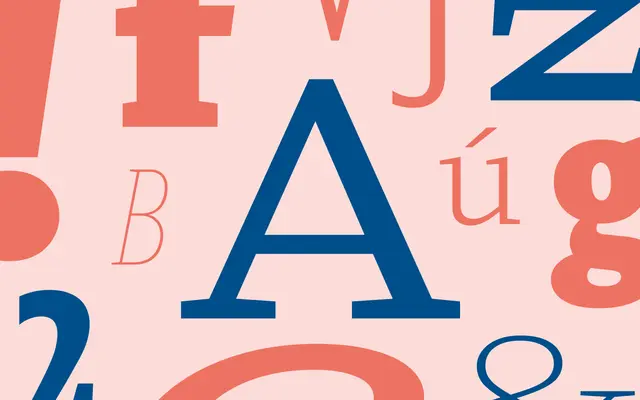
Aldgate Serif
Dalton Maag · Ignacio Casco Guijarro · 2023
Aldgate Serif specimen from Dalton Maag
A contemporary serif companion to Aldgate Sans, with Weight, Width and Italic variable axes and a warm, dignified tone.
Dalton Maag's Aldgate Serif is a contemporary serif by Ignacio Casco Guijarro, released 2023 to pair with Aldgate Sans. The variable font runs Hairline to Black across seven widths from ExtraCondensed to ExtraExtended with matching italics. The page describes open letter shapes that ensure legibility with a warm and dignified tone, with Latin coverage spanning over 800 languages.
Dalton Maag describes Aldgate Serif as a contemporary serif typeface designed to support and complement its Sans cousin, with open letter shapes, a warm and dignified tone, and a variable font with extensive Weight, Width and Italic axes.